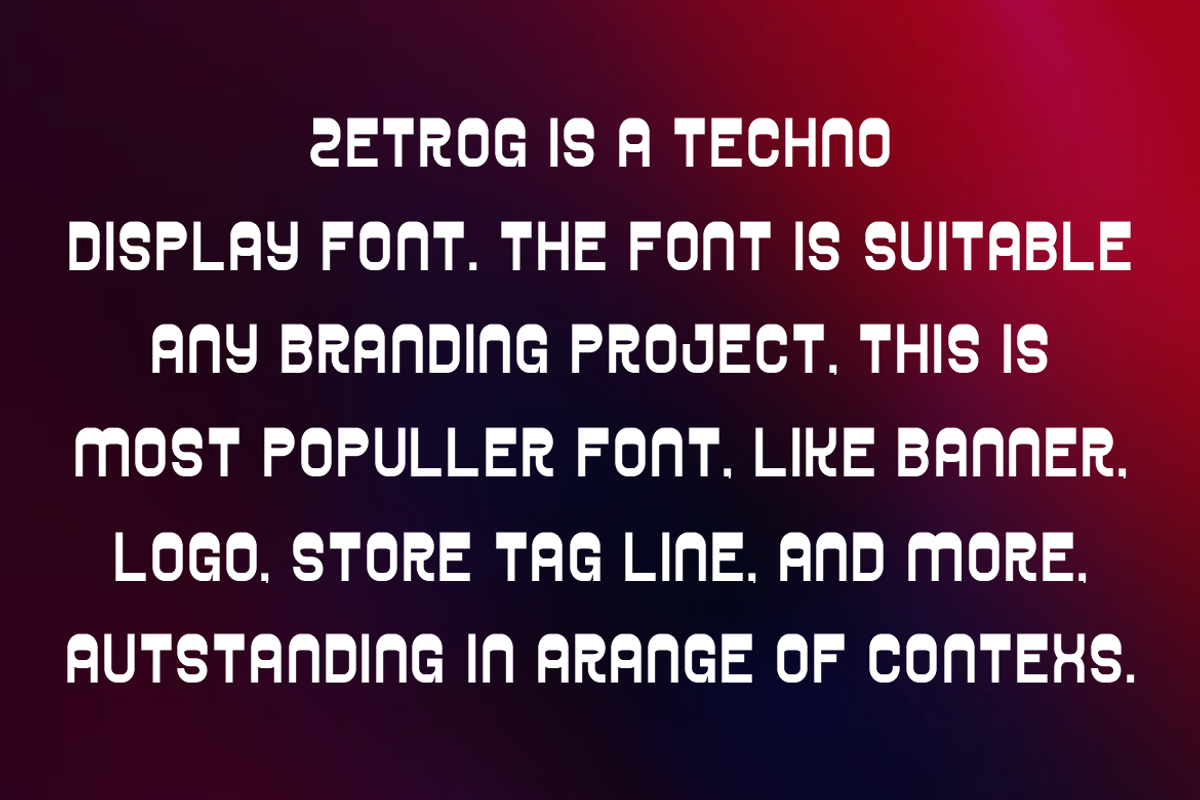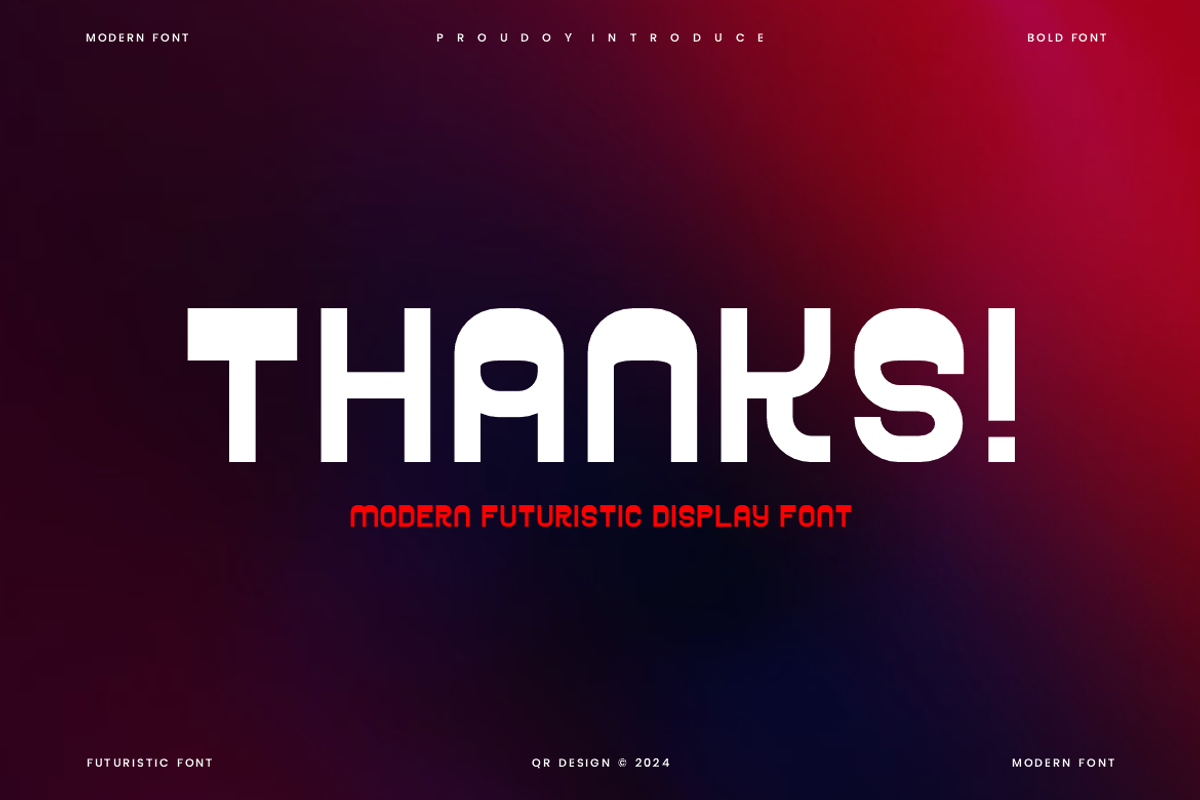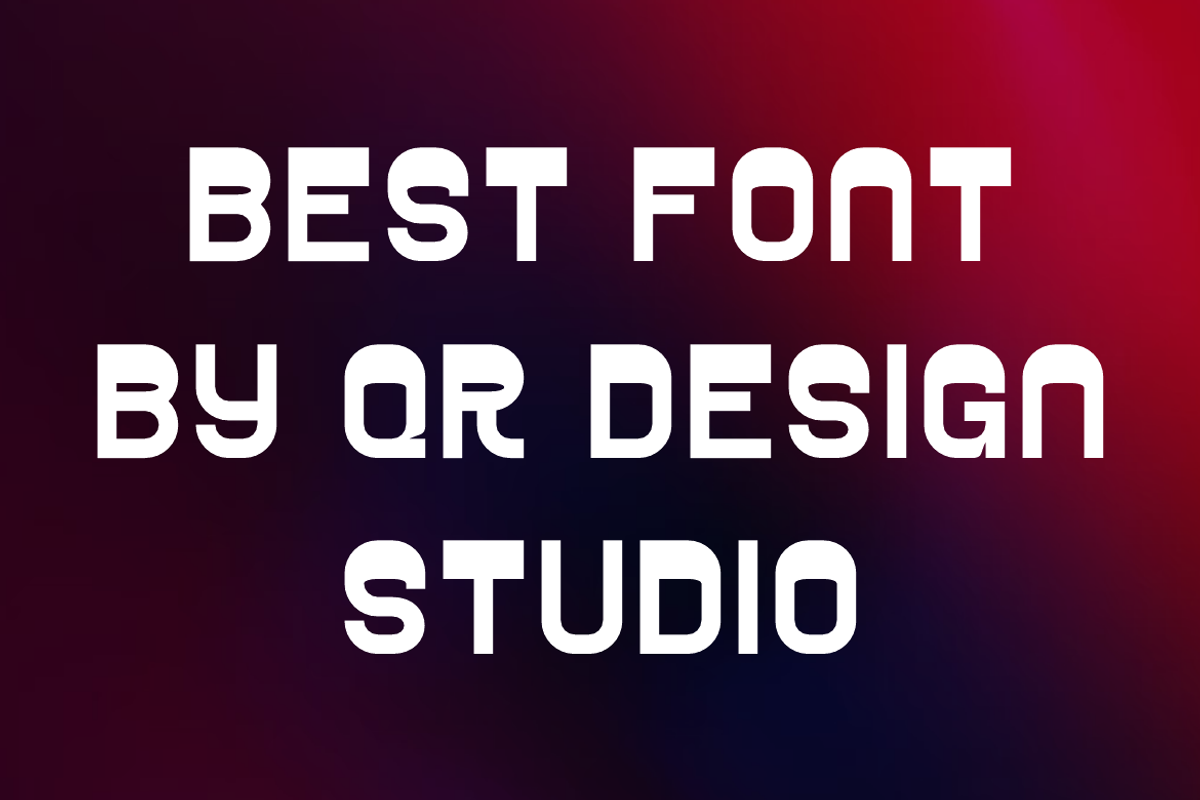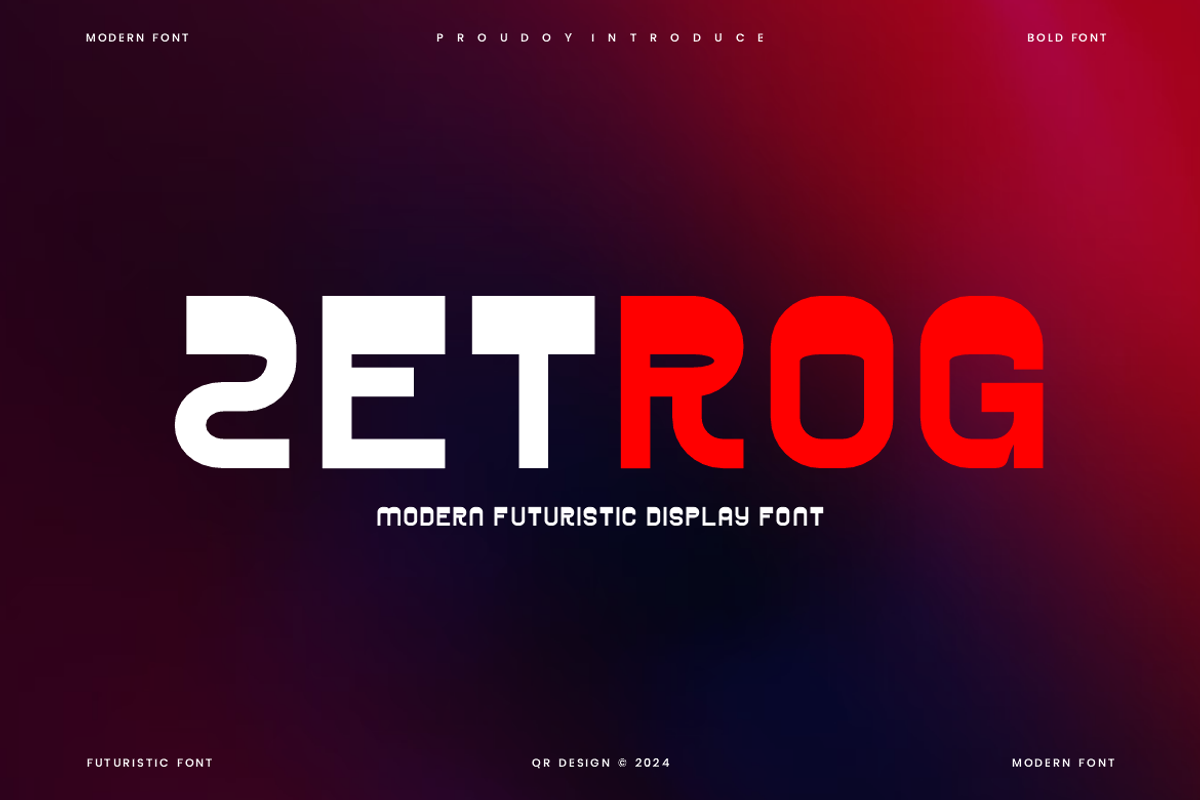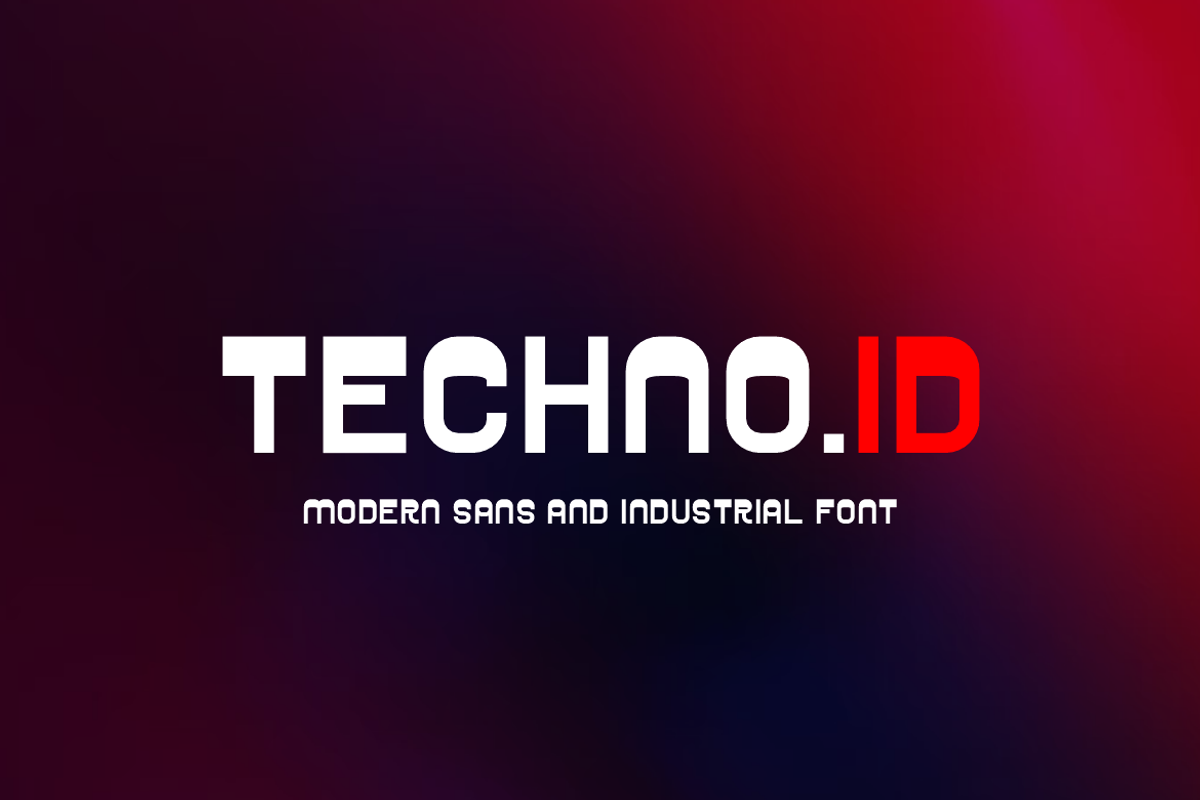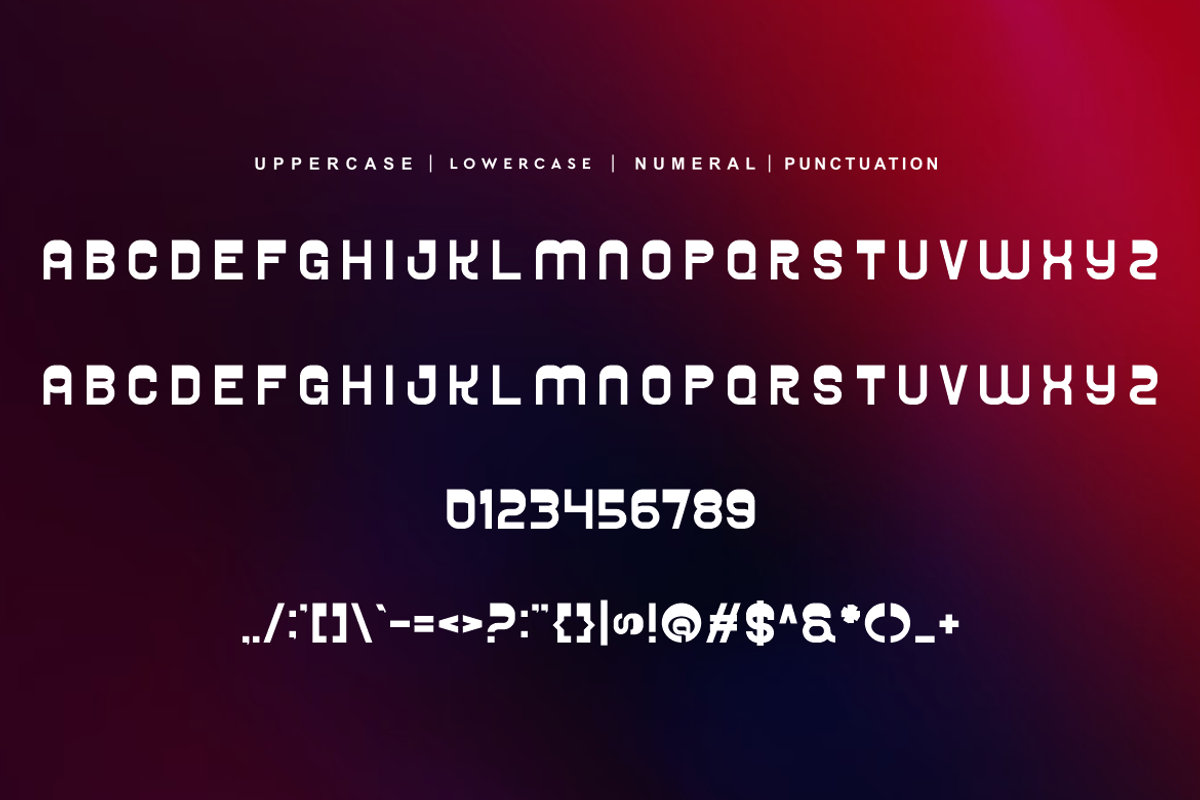
Zetrog - Futuristic Font
Zetrog - Futuristic Font is a bold and authentic display font. The font is suitable for any branding project like poster, logo, sport, and many more. Outstanding in a wide range of contexts.